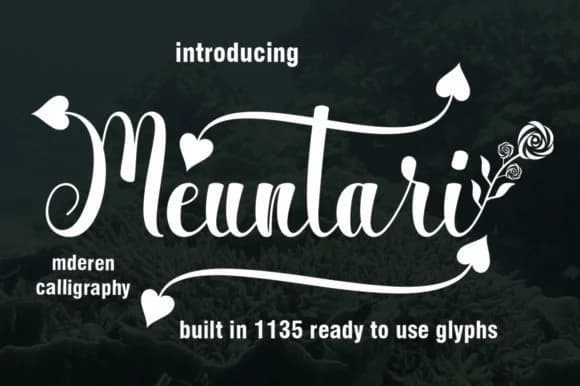
Meuntari by nasristudio is a handwritten script font that brings authentic warmth and organic character to a diverse range of creative projects. With its flowing, naturally-spaced letterforms and distinctive character set, this typeface excels in wedding invitation suites, personalized greeting card designs, boutique product packaging, and social media graphics that benefit from a handmade aesthetic. The font's rich glyph collection includes stylistic variations and alternative characters, giving designers multiple ways to add personality and visual depth to their work without overworking the composition.
Whether you're producing custom Etsy product labels, designing premium stationery sets, developing branded packaging for small-batch goods, or creating hand-lettered social content, Meuntari adapts with equal grace to formal and casual applications. The genuinely handwritten quality gives designs an intimate touch that speaks to audiences seeking authentic visual communication over mass-produced aesthetics. Each letterform carries intentional character that reads as human-made rather than algorithmic, making it particularly strong for projects where warmth, individuality, and craftsmanship matter more than technical perfection. The flexible letterforms perform beautifully whether rendered large for impact on headlines and signage, or sized smaller for specialized applications where charm and readability must coexist.
Meuntari Font is a script font that shines as a display or heading face. Pair it with a clean sans-serif or serif font for body text β the contrast creates a clear hierarchy while the two styles stay balanced and easy to read.
Meuntari Font
by nasristudio